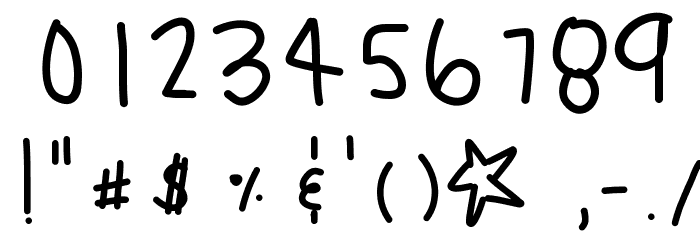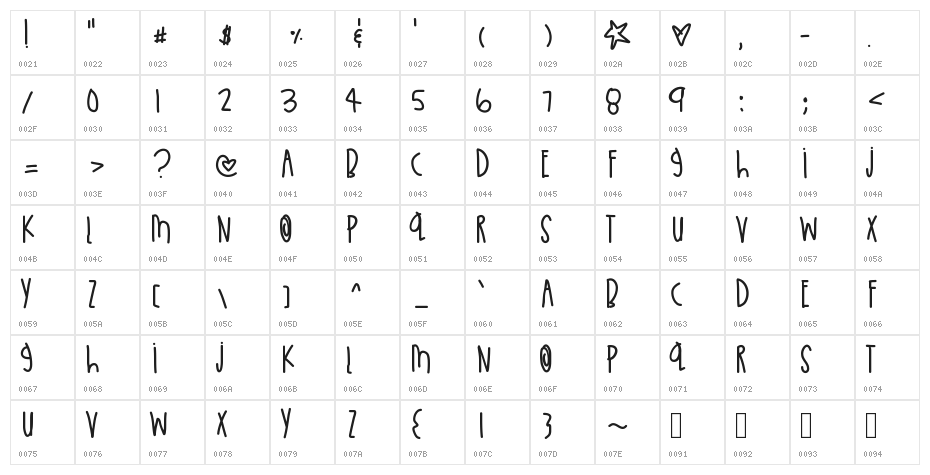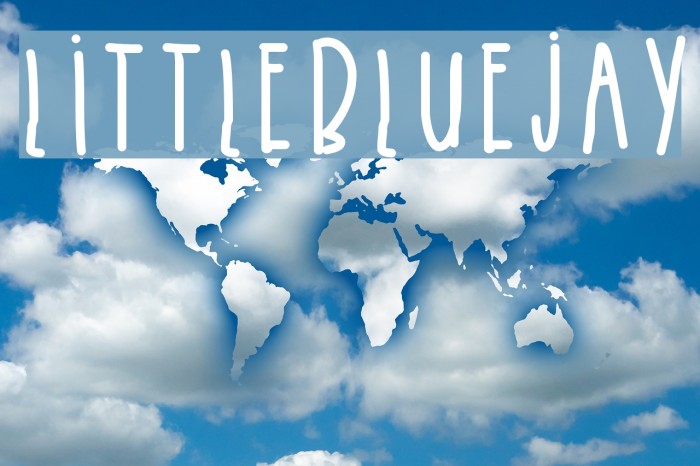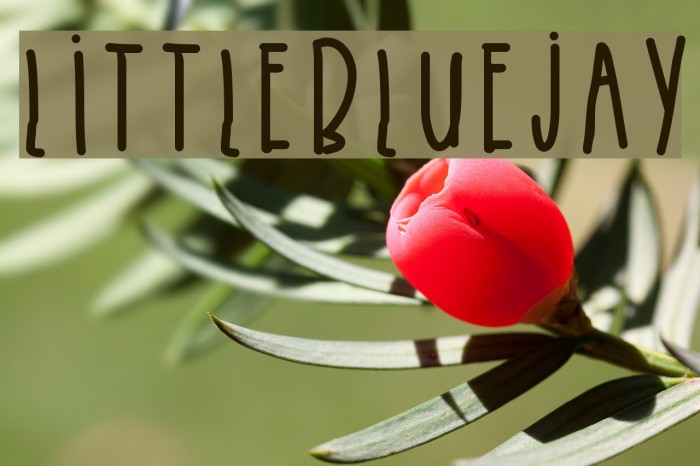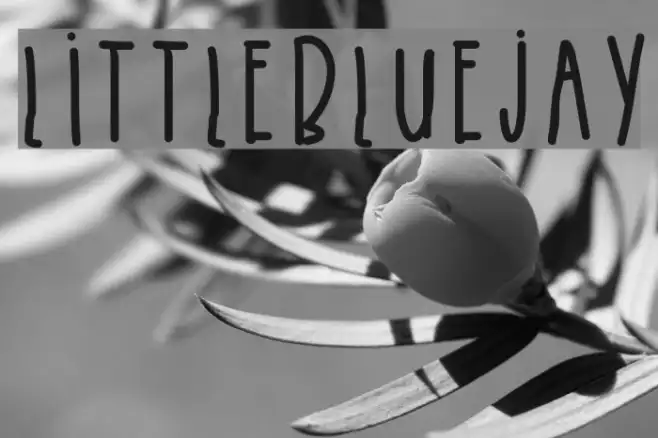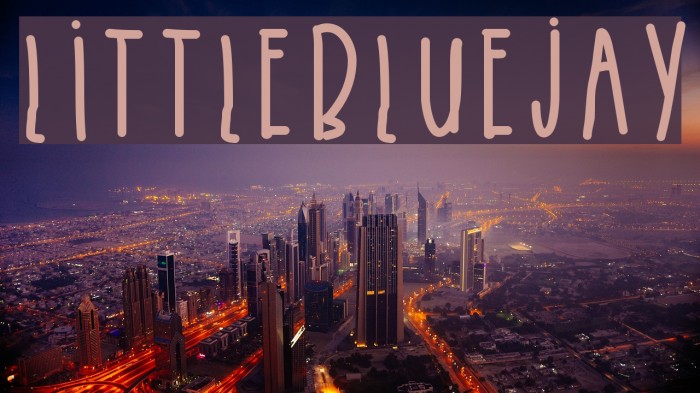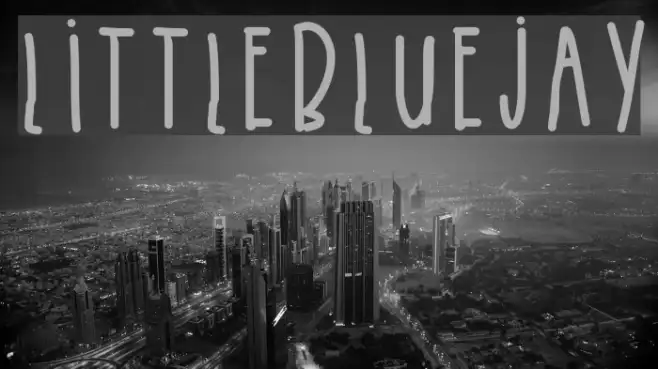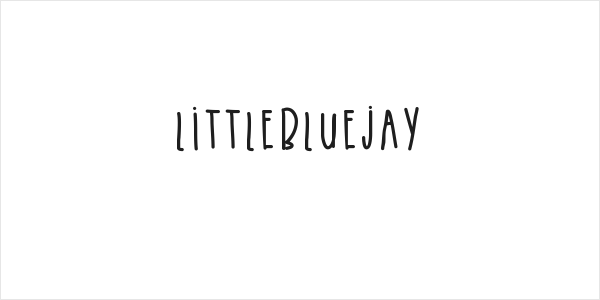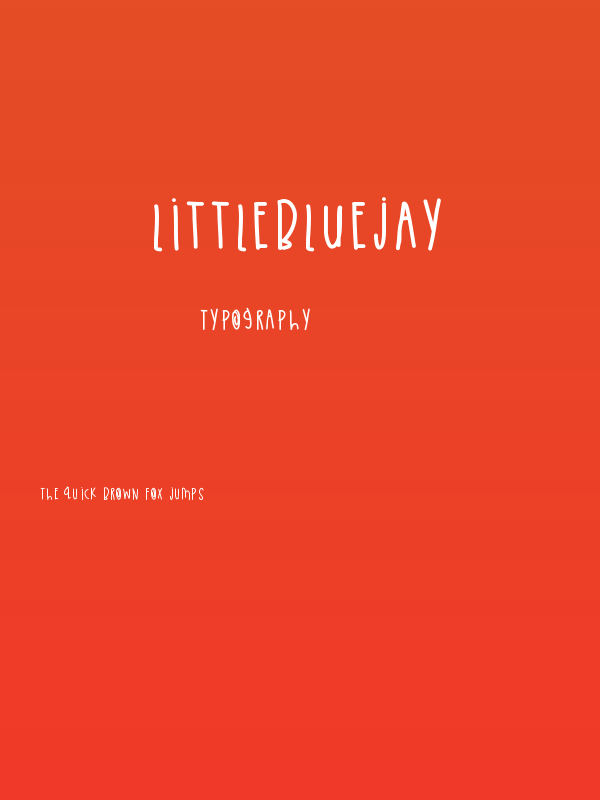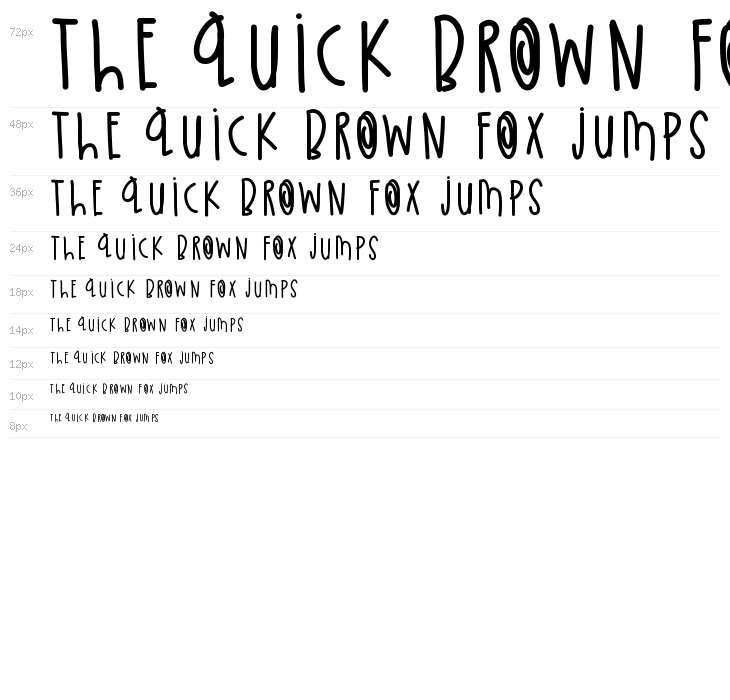
LittleBlueJay Font
LittleBlueJay Description
This playful and whimsical font features a handwritten style with a casual and friendly appearance. The characters are tall and narrow, with a consistent stroke width that gives it a clean and modern look. The letters have a slight tilt, adding to the informal and approachable feel. The font includes both uppercase and lowercase letters, numbers, and a variety of special characters, making it versatile for different uses. Its unique style is characterized by rounded edges and a slightly uneven baseline, which enhances its charm and personality.
| Proposed Projects | Ideal for children's books, greeting cards, playful branding, and social media graphics. |